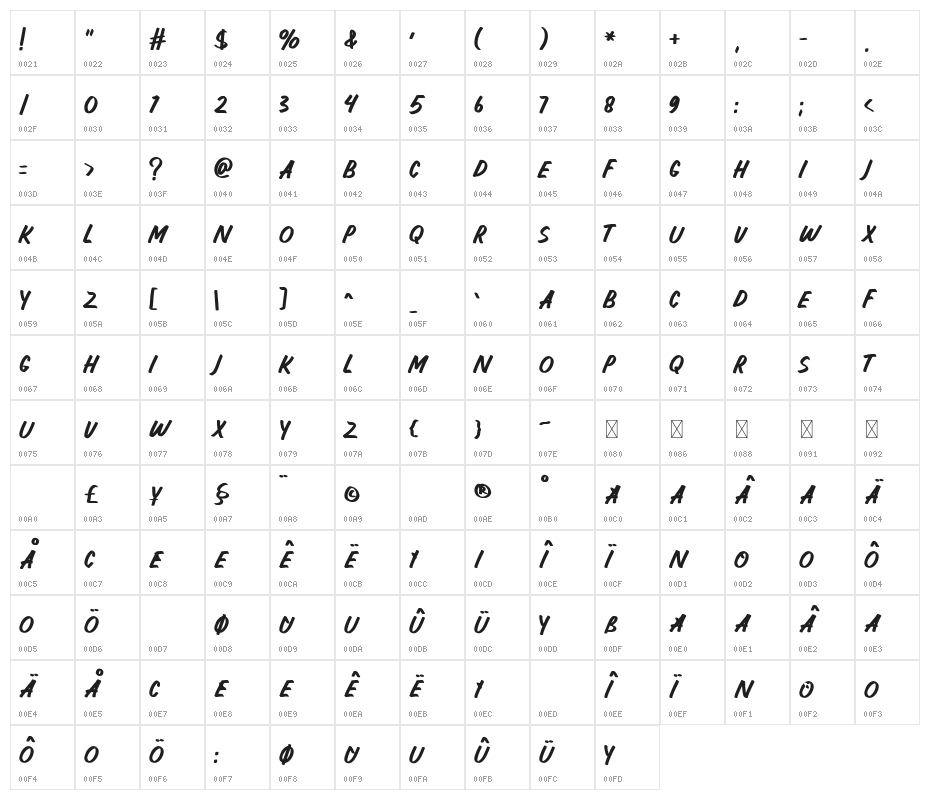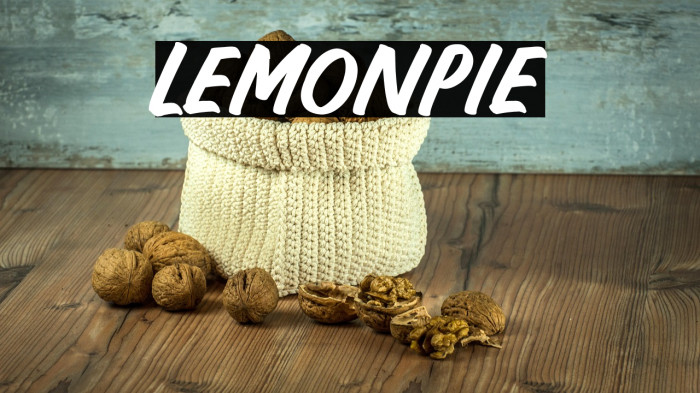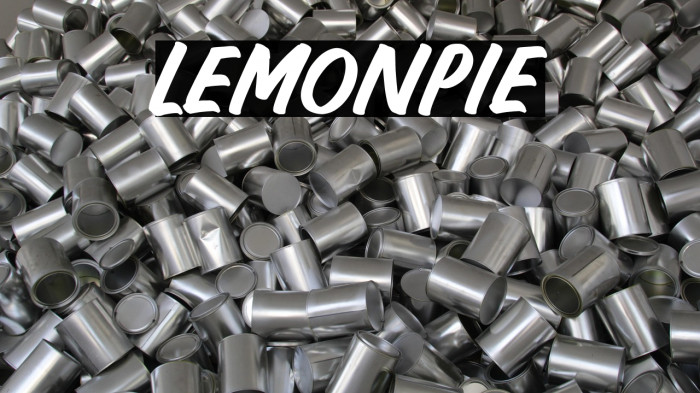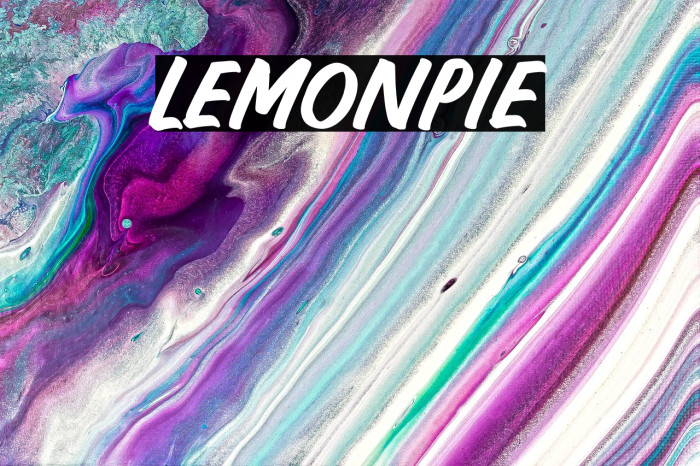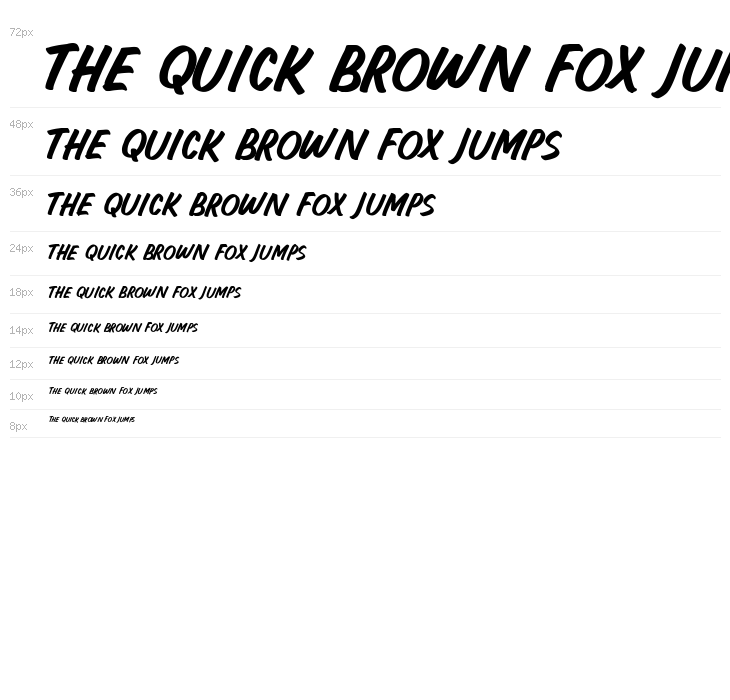
LEMONPIE Font
LEMONPIE Description
This font features a bold and energetic script style, characterized by its dynamic and fluid strokes. The letters are slightly slanted, giving a sense of movement and liveliness. The uppercase and lowercase letters maintain a consistent style, with rounded edges and a playful appearance. The numbers and special characters are designed to match the overall aesthetic, ensuring a cohesive look across all text elements. This font's boldness and unique style make it stand out, perfect for projects that require a touch of personality and flair.
Overall StyleModern, Decorative
Proposed ProjectsIdeal for branding, posters, social media graphics, and any project needing a lively, personal touch.